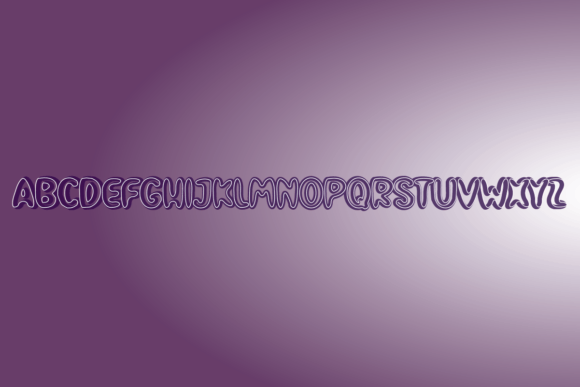
Introduction to Pernerple Font
Have you ever been brainstorming ideas for a creative project, only to be halted by the perfect font to bring it all together? For designers, finding that elusive perfect font can be a game-changer. Imagine being able to add a touch of whimsy and personality to your designs with a single, stylish font.
Enter the Pernerple Font, a fun and decorative font that’s sure to elevate your next project. Whether you’re working on a sublimation design, creating greeting cards, or crafting advertisements, this font is the perfect addition to your toolkit. With its unique and attractive design, you’ll be able to express your creativity and bring your vision to life in high quality, every time.
Key Features of Pernerple Font
- High-quality design resource ideal for creative projects, including digital art, graphics, and web design.
- Unique, modern font with a transparent background, making it perfect for use on any background or design element.
- Designed with precision and care, resulting in a crisp, clear font that is perfect for both on-screen and print use.
- Perfect for designers and artists looking for a versatile, high-quality design resource to elevate their creative project.
Honest Review: Pernerple Font
I recently had the chance to experiment with the Pernerple Font, and I’m excited to share my thoughts on this design resource.
What works well: ✨ The Pernerple Font is a high-quality font that offers a unique, creative flair perfect for those looking to add a touch of personality to their projects. Its transparent background allows for seamless integration into various design elements, making it an excellent choice for graphic designers and artists.
- Supports a wide range of creative projects, from logos and branding to digital art and illustrations.
Limitations: ⚠️ While the Pernerple Font is an excellent resource, it may not be suitable for all design projects. The font’s unique style may not appeal to designers who prefer more traditional or conservative fonts.
Pernerple Font
Tips for Getting the Most Out of Pernerple Font
For the best results, use the Pernerple Font on a transparent background to create a high-quality design. You can also experiment with different font sizes and styles to add depth and visual interest to your project.
The Pernerple Font is ideal for a variety of creative projects, including brochures, flyers, and business cards. It’s also great for designing logos and branding materials.